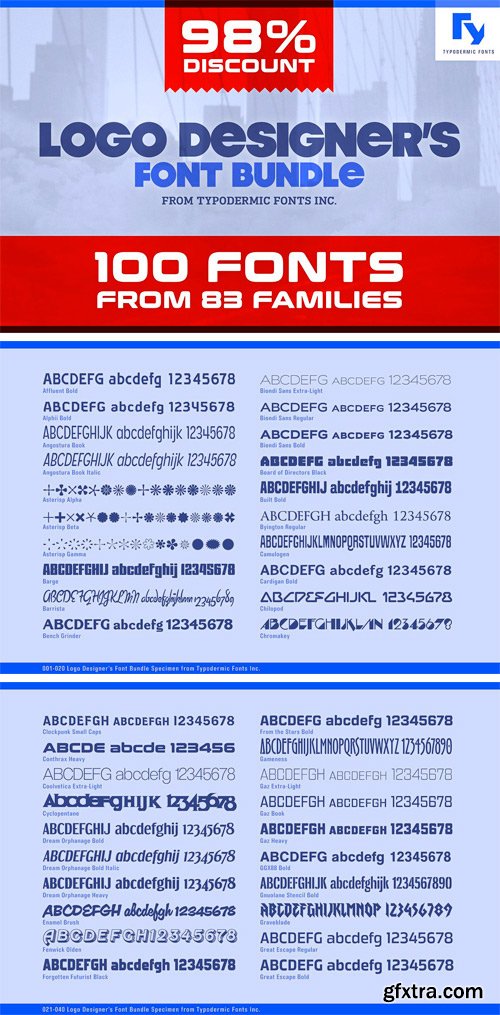
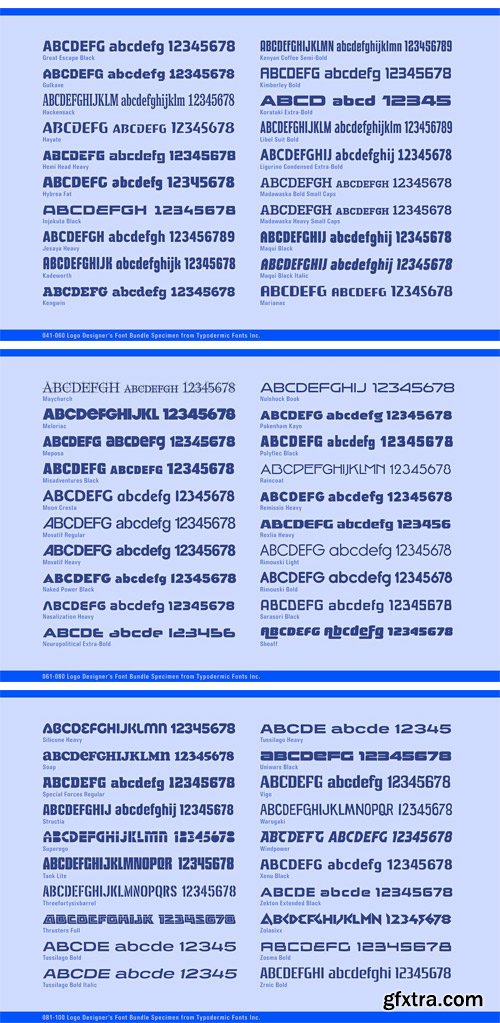
CM 1275477 - Logo Designer’s Font Bundle
Logo design is really tough—having a good selection of display fonts can make the job a little easier. Many of the fonts in this package were designed specifically for heavy, tight-fitting logos and titles: like Meloriac and Maqui Black. If you need squarish type that you use as a base for pushing vectors, you’ll find lots to work with here such as Gaz, Forgotten Futurist Black and Zrnic Bold. Some of these fonts use OpenType to automatically interlock letters or join ligatures: Chilopod, Cyclopentane, Enamel Brush, Movatif, Raincoat, Sheaff and Zolasixx. Of course, the fonts in the Logo Designer’s Font Bundle aren’t just for logo design; they’re perfect for titles, headlines or any other job where you need to grab hold of the reader’s attention. The Logo Designer’s Font Bundle contains 100 fonts from 83 families in OpenType (OTF) format.
Fonts included in this collection: • Affluent Bold • Alphii Bold • Angostura Book • Angostura Book Italic • Asterisp Alpha • Asterisp Beta • Asterisp Gamma • Barge • Barrista • Bench Grinder • Biondi Sans Extra-Light • Biondi Sans Regular • Biondi Sans Bold • Board of Directors Black • Built Bold • Byington Regular • Camulogen • Cardigan Bold • Chilopod • Chromakey • Clockpunk Small Caps • Conthrax Heavy • Coolvetica Extra-Light • Cyclopentane • Dream Orphanage Bold • Dream Orphanage Bold Italic • Dream Orphanage Heavy • Enamel Brush • Fenwick Olden • Forgotten Futurist Black • From the Stars Bold • Gameness • Gaz Extra-Light • Gaz Book • Gaz Heavy • GGX88 Bold • Gnuolane Stencil Bold • Graveblade • Great Escape Regular • Great Escape Bold • Great Escape Black • Gulkave • Hackensack • Hayate • Hemi Head Heavy • Hybrea Fat • Injekuta Black • Jesaya Heavy • Kadeworth • Kengwin • Kenyan Coffee Semi-Bold • Kimberley Bold • Korataki Extra-Bold • Libel Suit Bold • Ligurino Condensed Extra-Bold • Madawaska Bold Small Caps • Madawaska Heavy Small Caps • Maqui Black • Maqui Black Italic • Marianas • Maychurch • Meloriac • Meposa • Misadventures Black • Moon Cresta • Movatif Regular • Movatif Heavy • Naked Power Black • Nasalization Heavy • Neuropolitical Extra-Bold • Nulshock Book • Pakenham Kayo • Polyflec Black • Raincoat • Remissis Heavy • Rexlia Heavy • Rimouski Light • Rimouski Bold • Sarasori Black • Sheaff • Silicone Heavy • Soap • Special Forces Regular • Structia • Superego • Tank Lite • Threefortysixbarrel • Thrusters Full • Tussilago Bold • Tussilago Bold Italic • Tussilago Heavy • Uniwars Black • Vigo • Warugaki • Windpower • Xenu Black • Zekton Extended Black • Zolasixx • Zosma Bold • Zrnic Bold